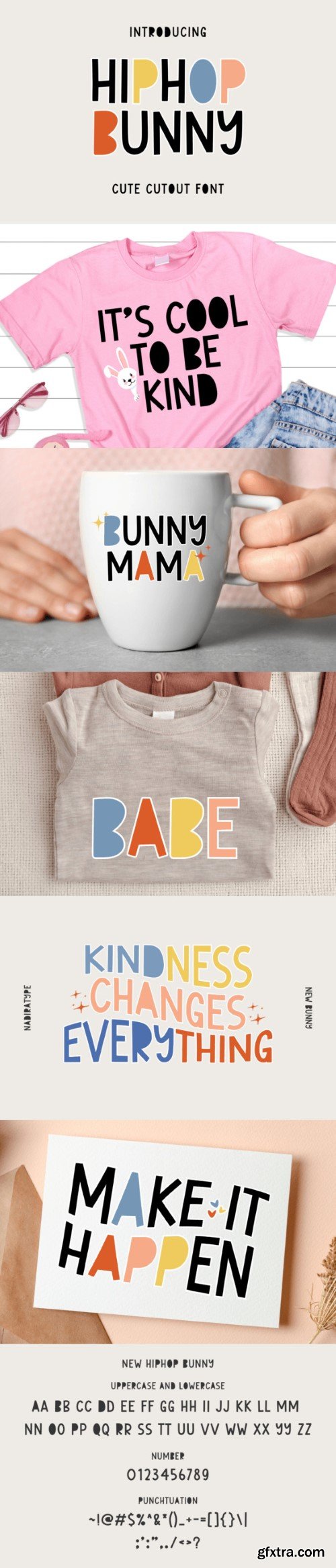
Hiphop Bunny 字体
Hiphop Bunny is a cute cutout, with a simple style. This font is very suitable for invitation cards, quotes, children’s t-shirts, adult t-shirts, mugs and more!